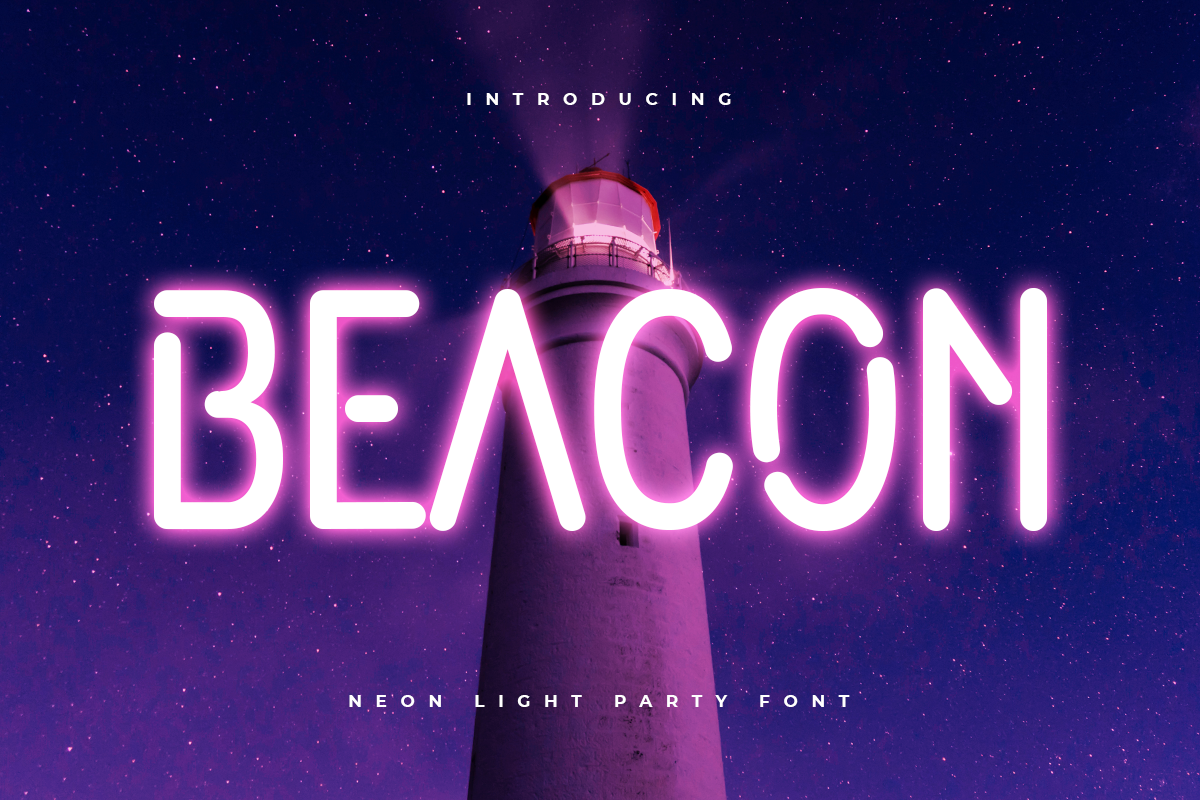
Beacon – Neon Light Party Font
Illuminate your designs with Beacon – a striking neon-inspired display font that brings electric energy to any project. Beacon features a modern sans serif design crafted specifically for headlines, titles, and standout typography that demands attention. The contemporary letterforms capture the essence of glowing neon signage, making your text pop with vibrant, party-ready style. This versatile display typeface includes extra ligatures to expand your creative possibilities and add unique variati...